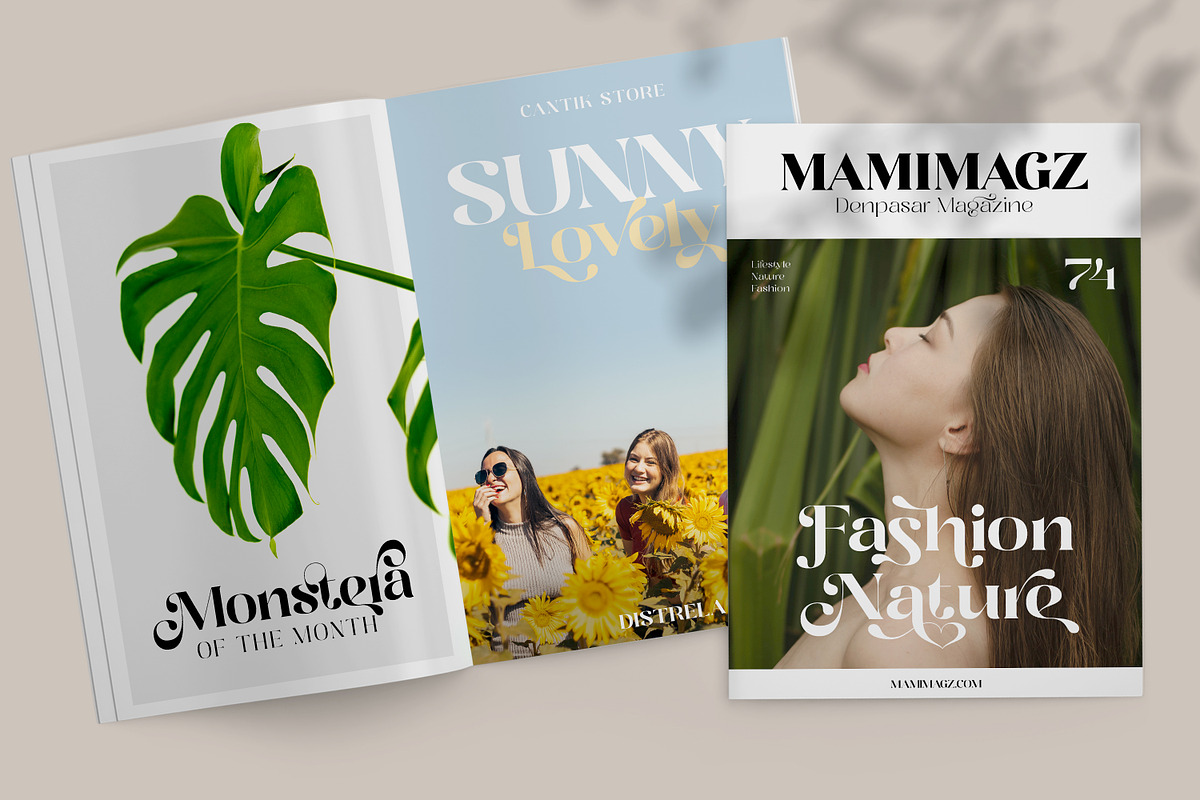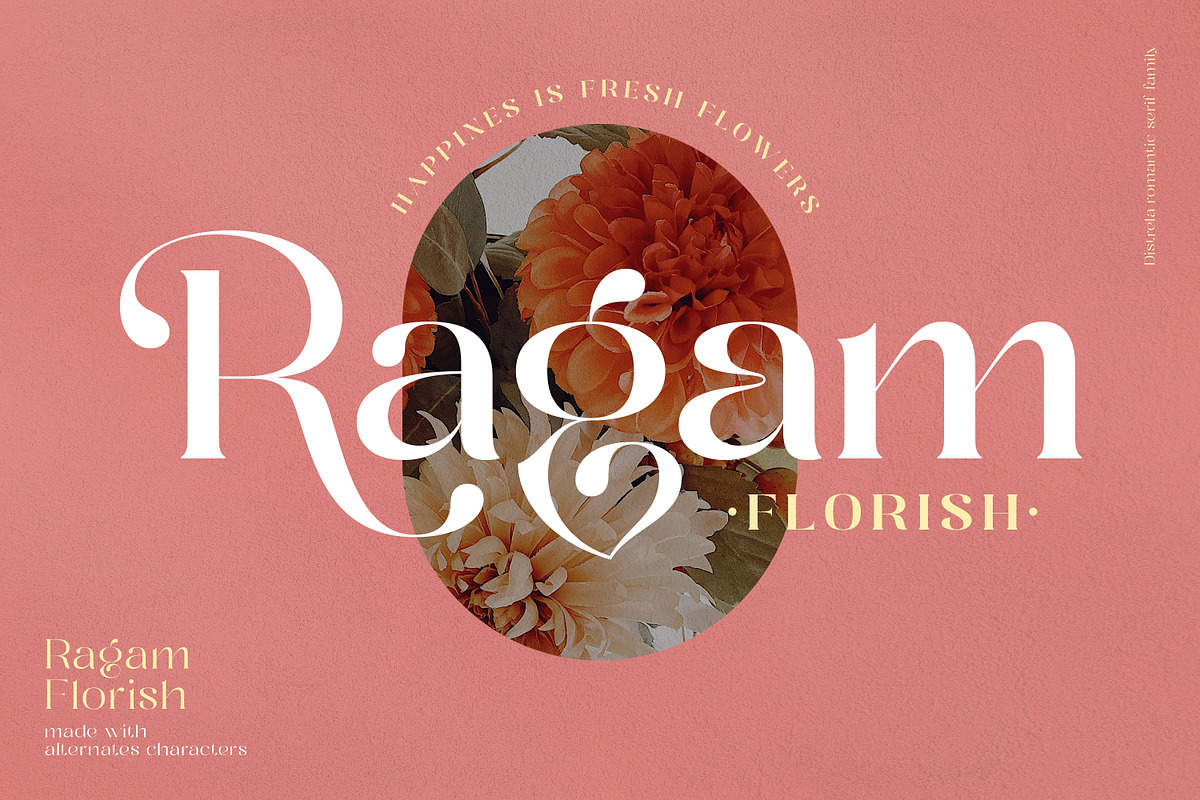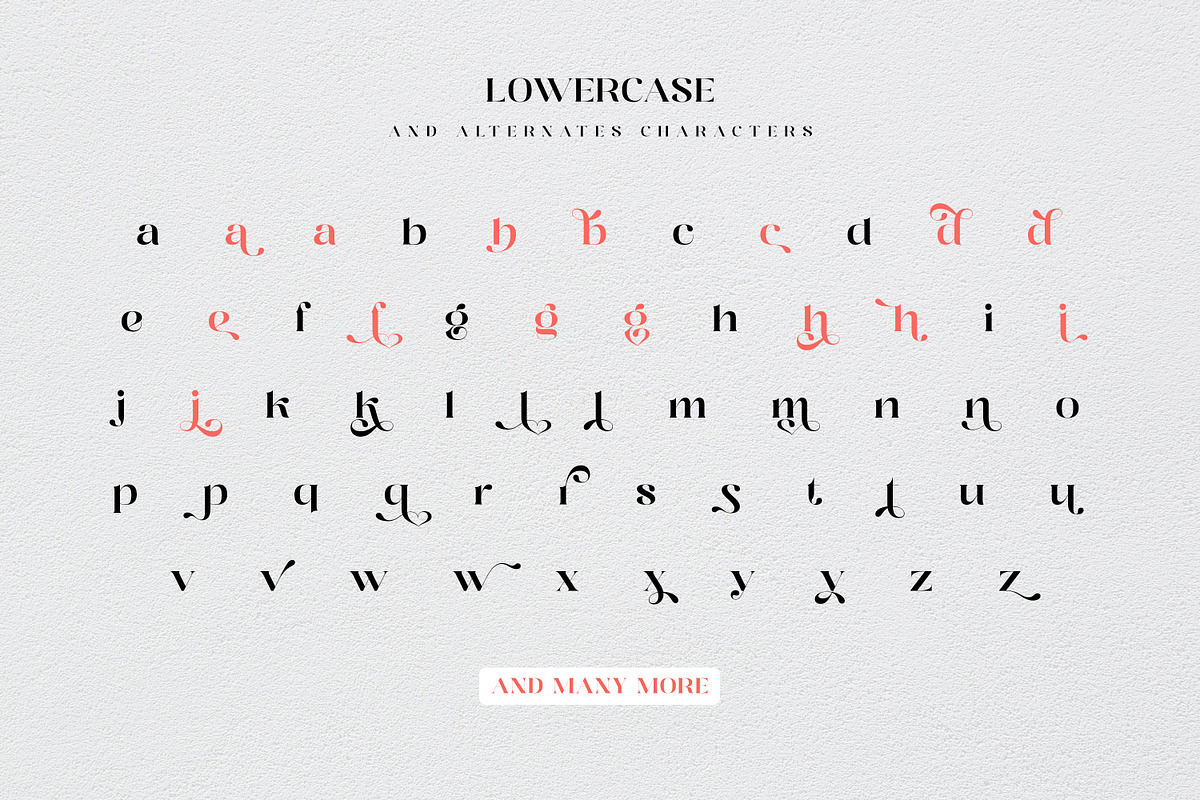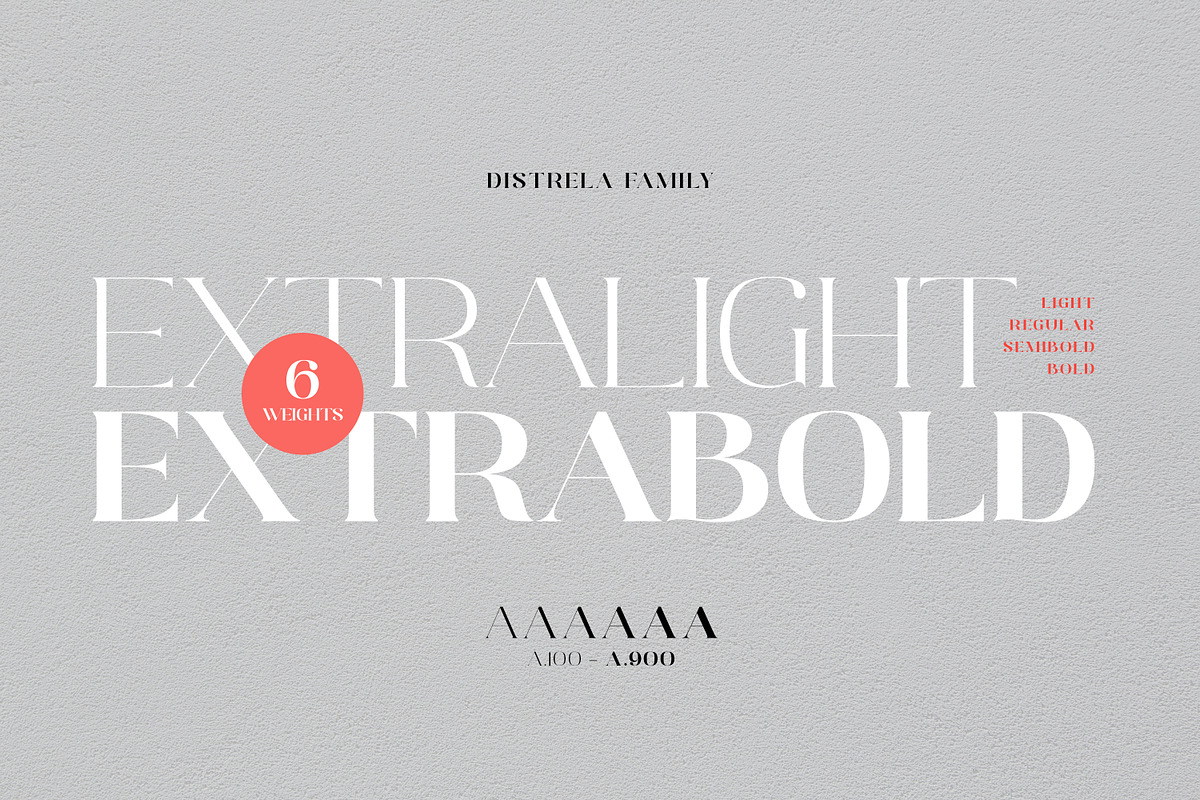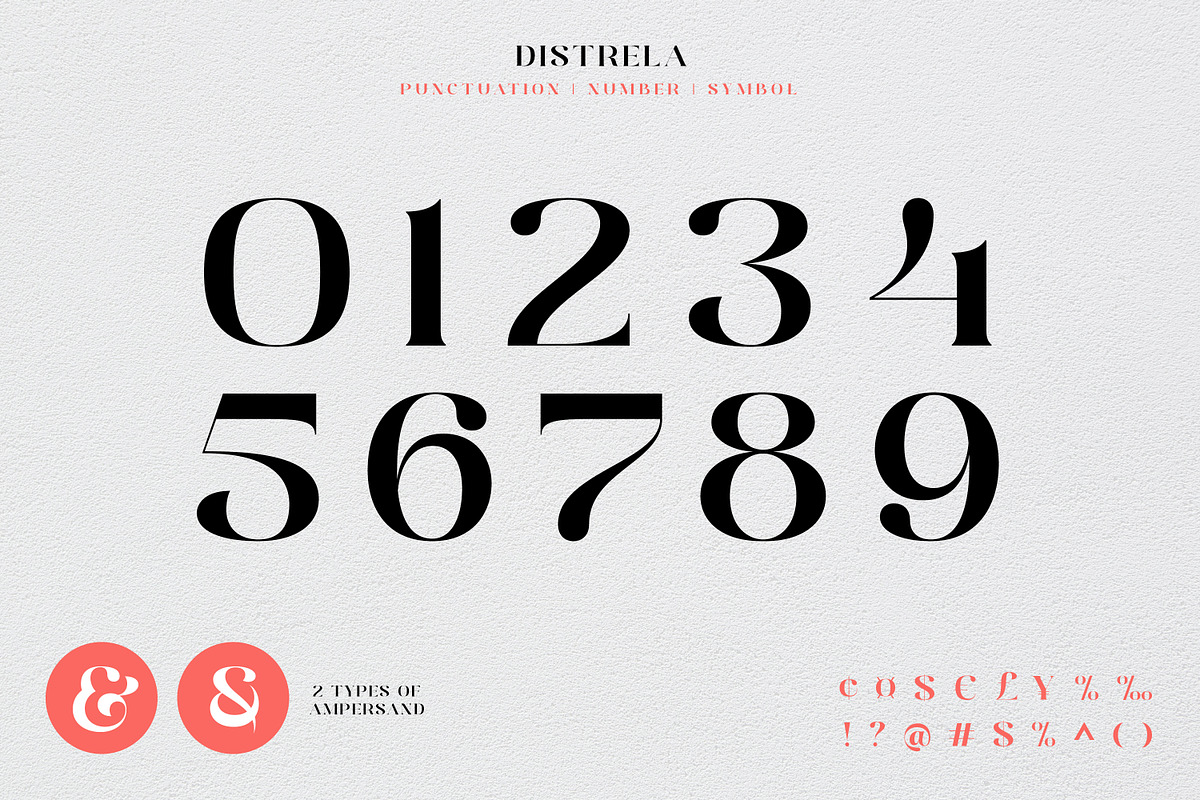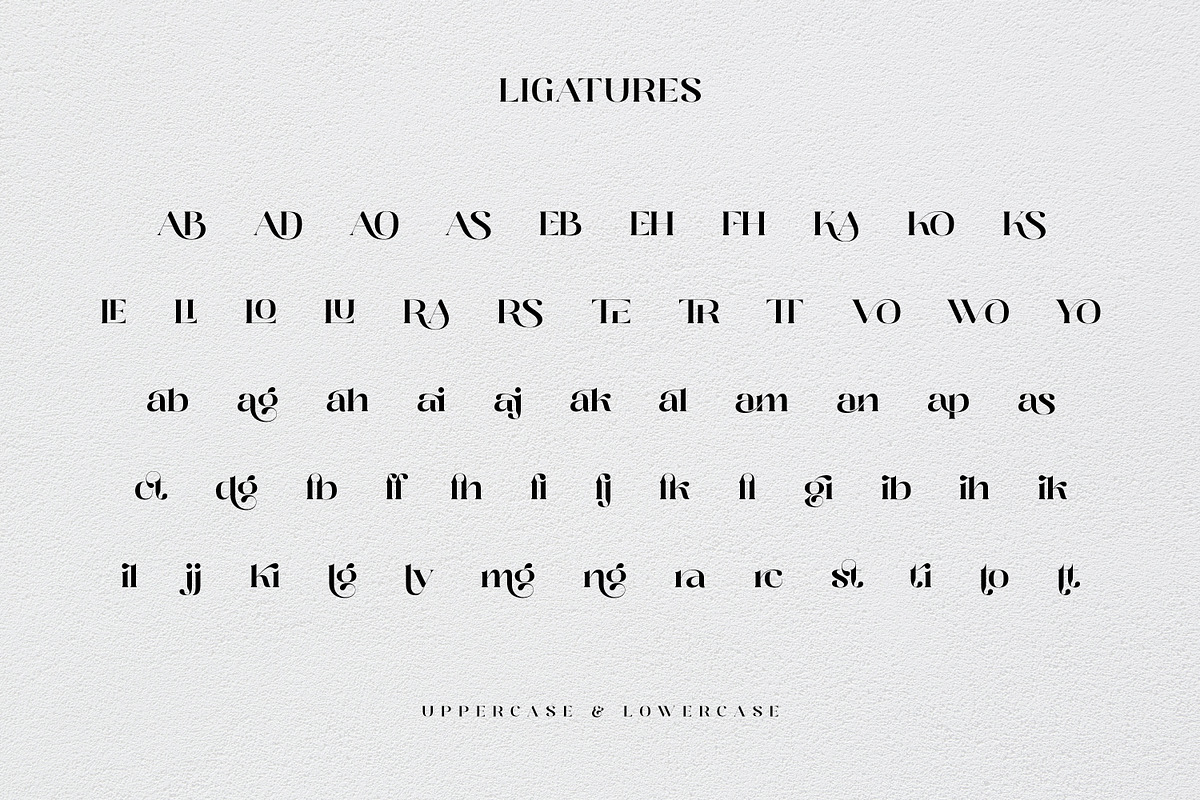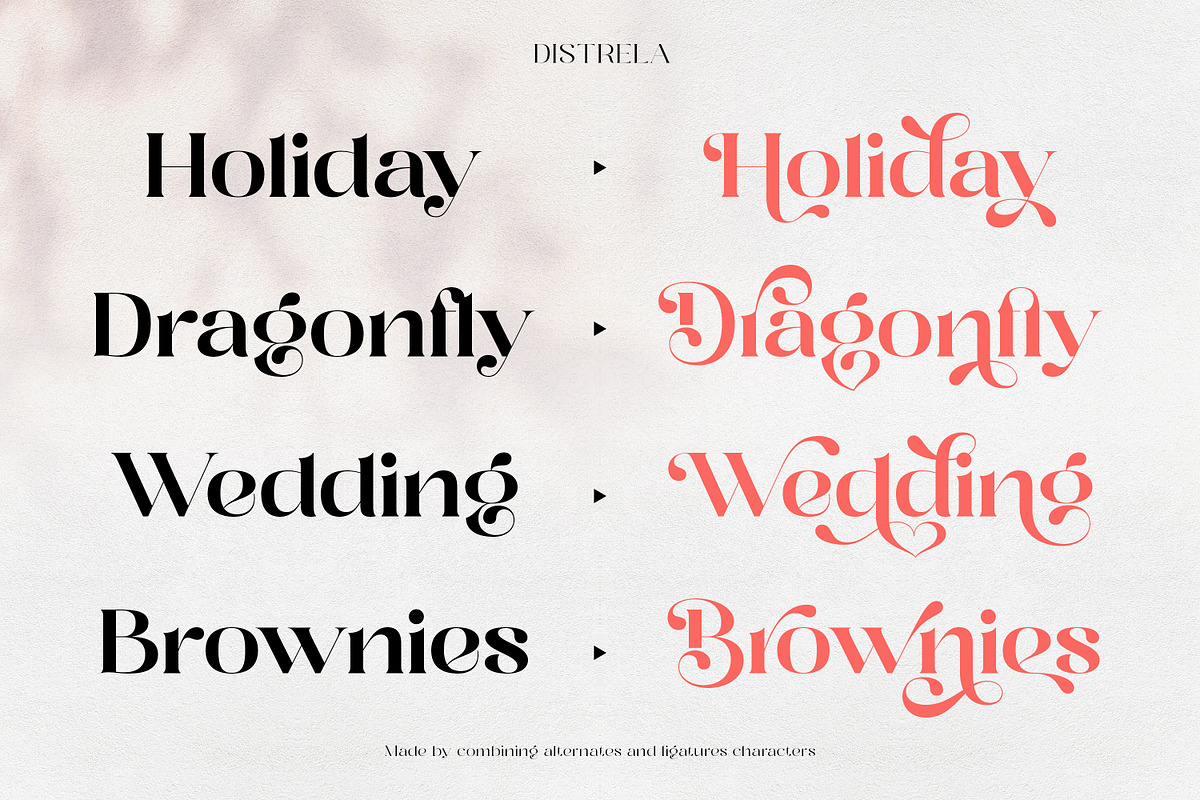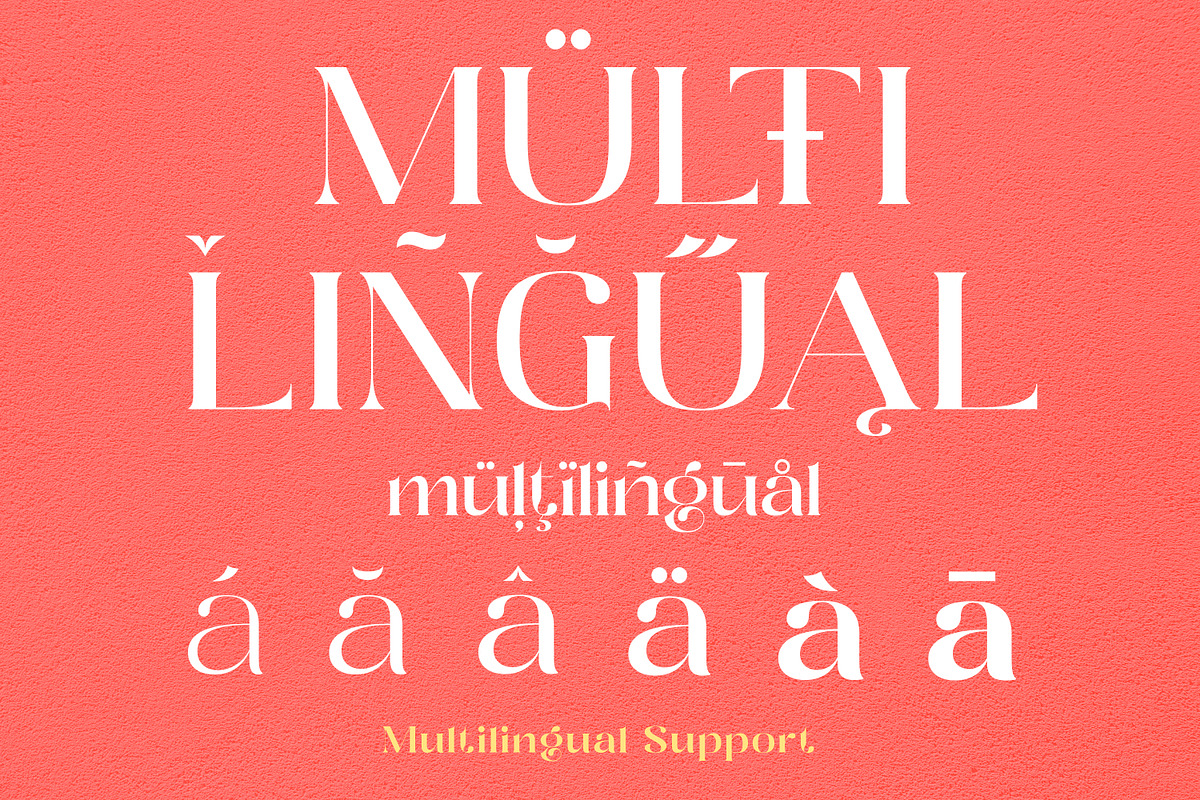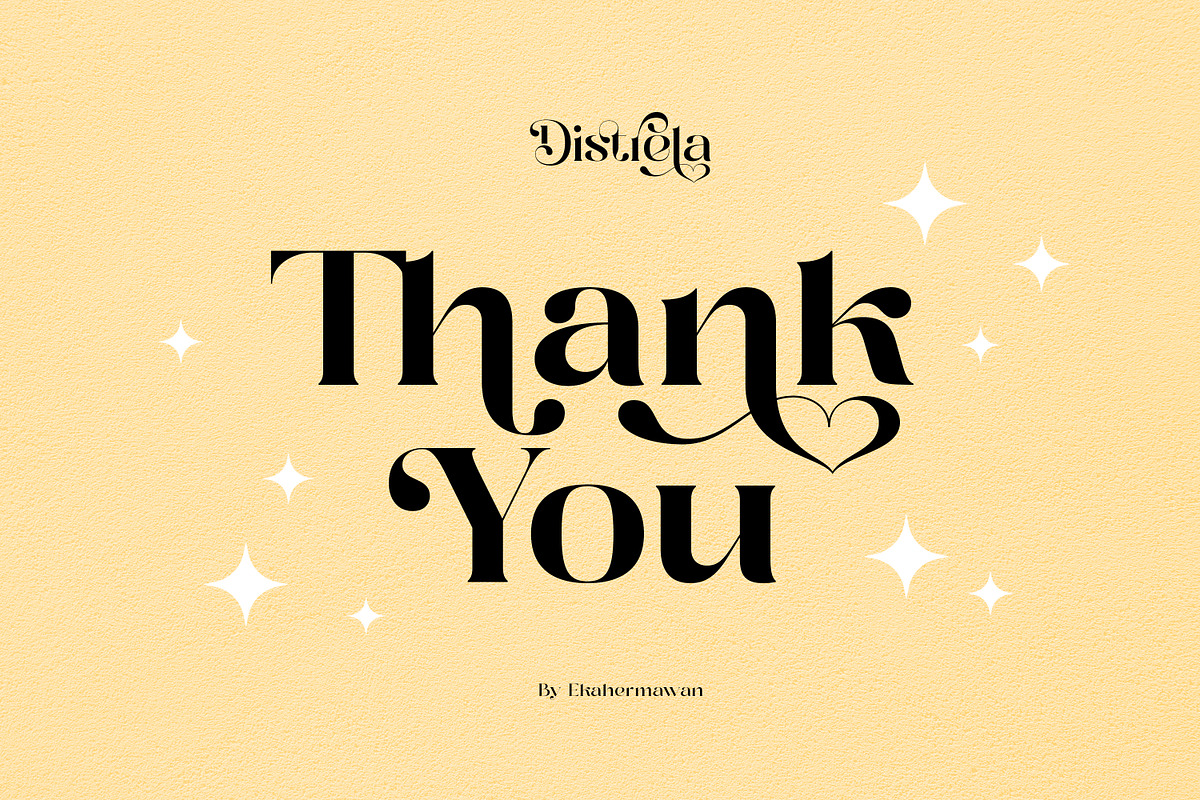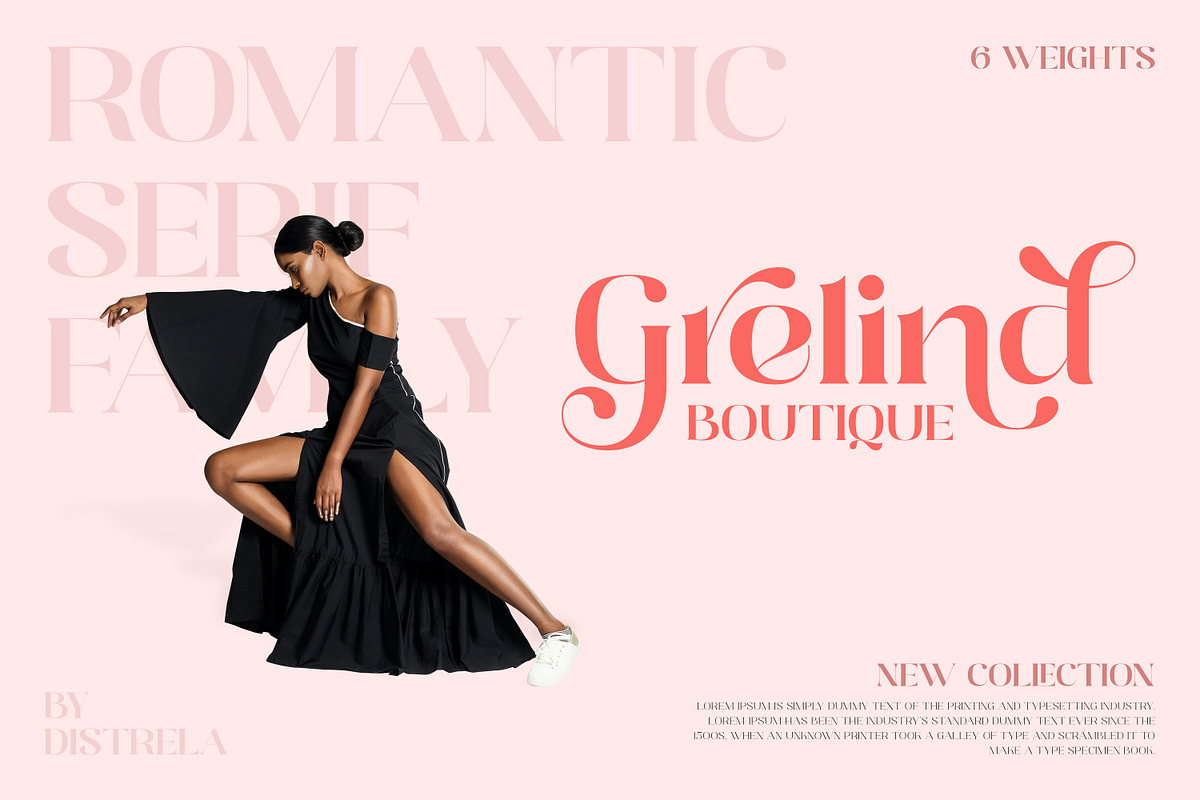
Distrela | Romantic Serif Font
Introducing, Distrela is a romantic serif family font that consists of 6 weights from ExtraLight to ExtraBold. Distrela comes with lots of alternates and ligatures characters that are specially designed with a romantic theme to make your design projects look more beautiful such as logo design, wedding, branding, poster, magazines, labels, merchandise, invitation, presentation, advertising and so much more!
- Playful to use (with ligatures and alternates options)